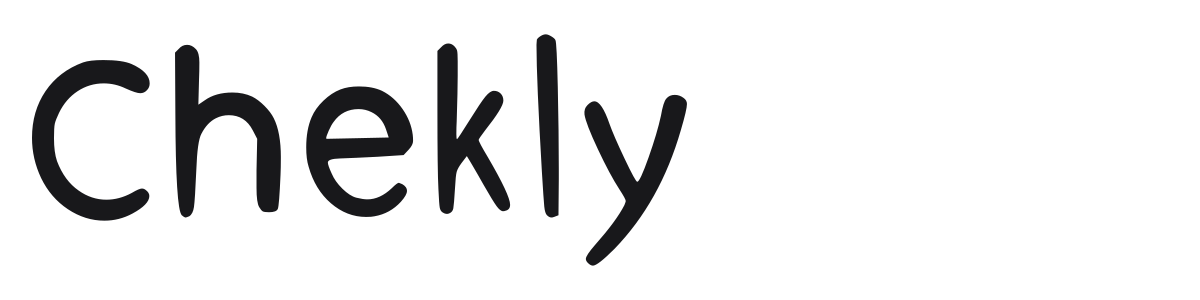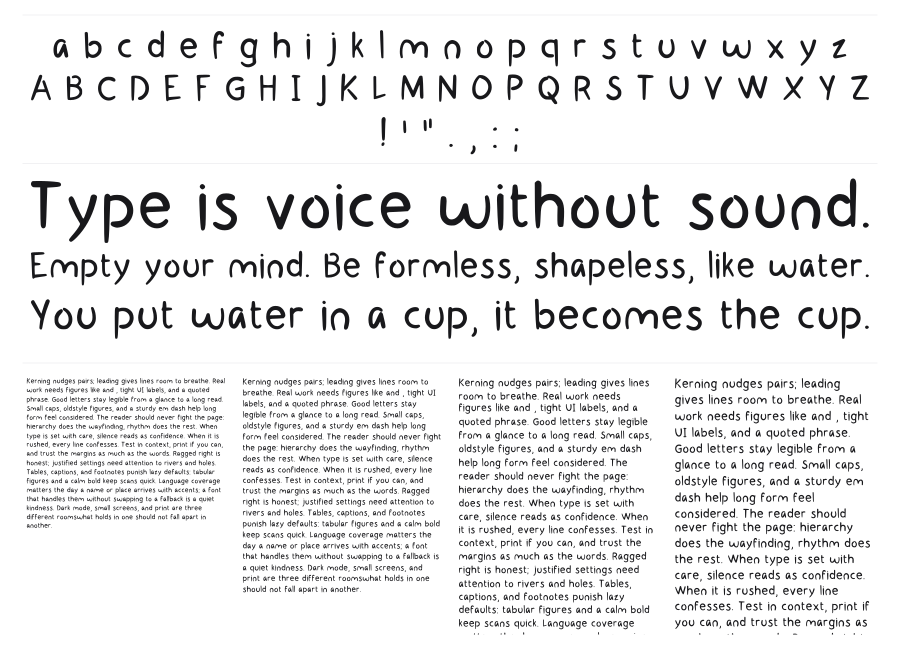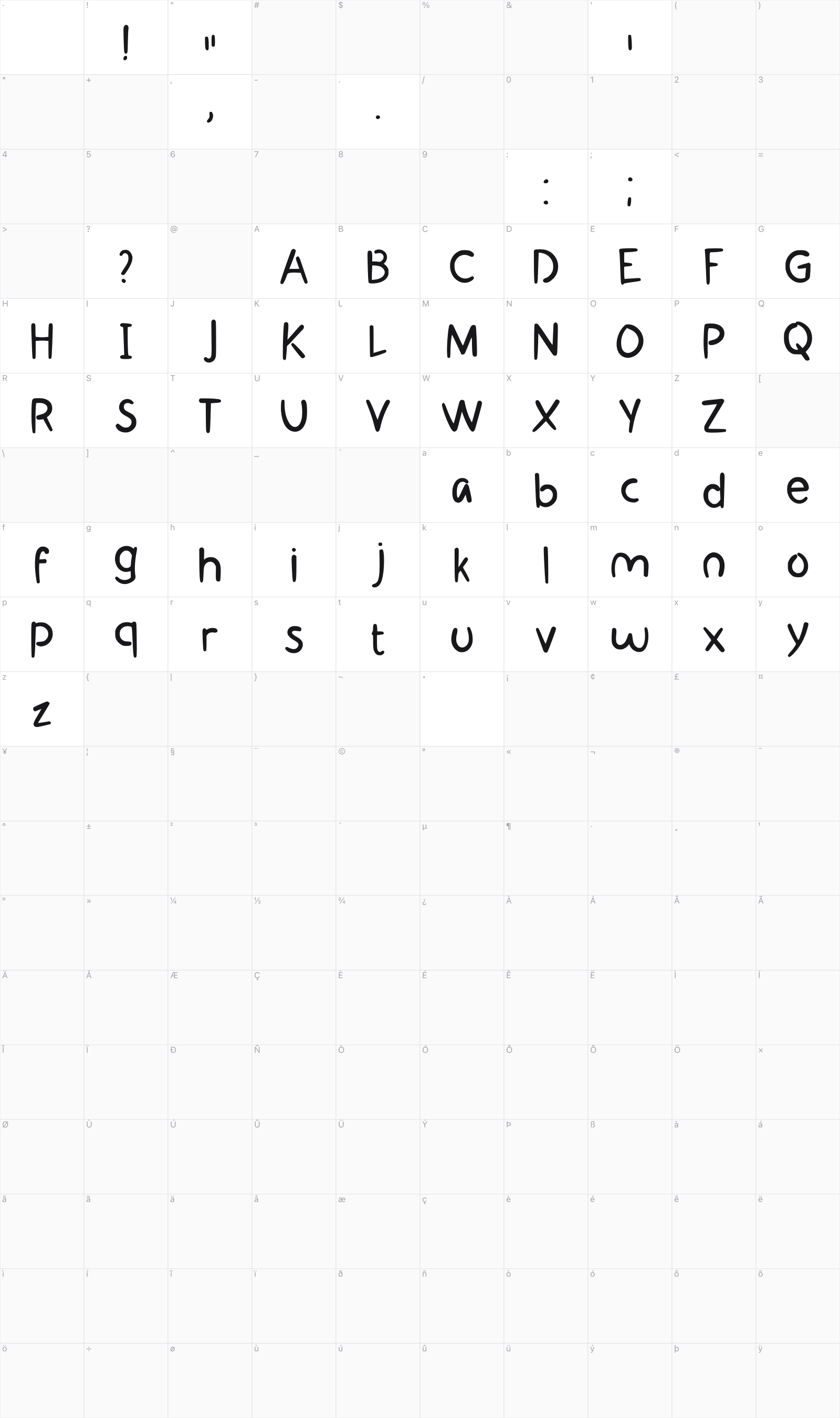
Chekly
by Kansen Type
Chekly is a casual handwritten font with rounded, slightly wobbly characters that feel drawn with a marker. The loose, uneven spacing and soft terminals give it genuine hand-lettered warmth rather than a mechanical feel. Built for kids' content, comic captions, posters, and quote graphics.